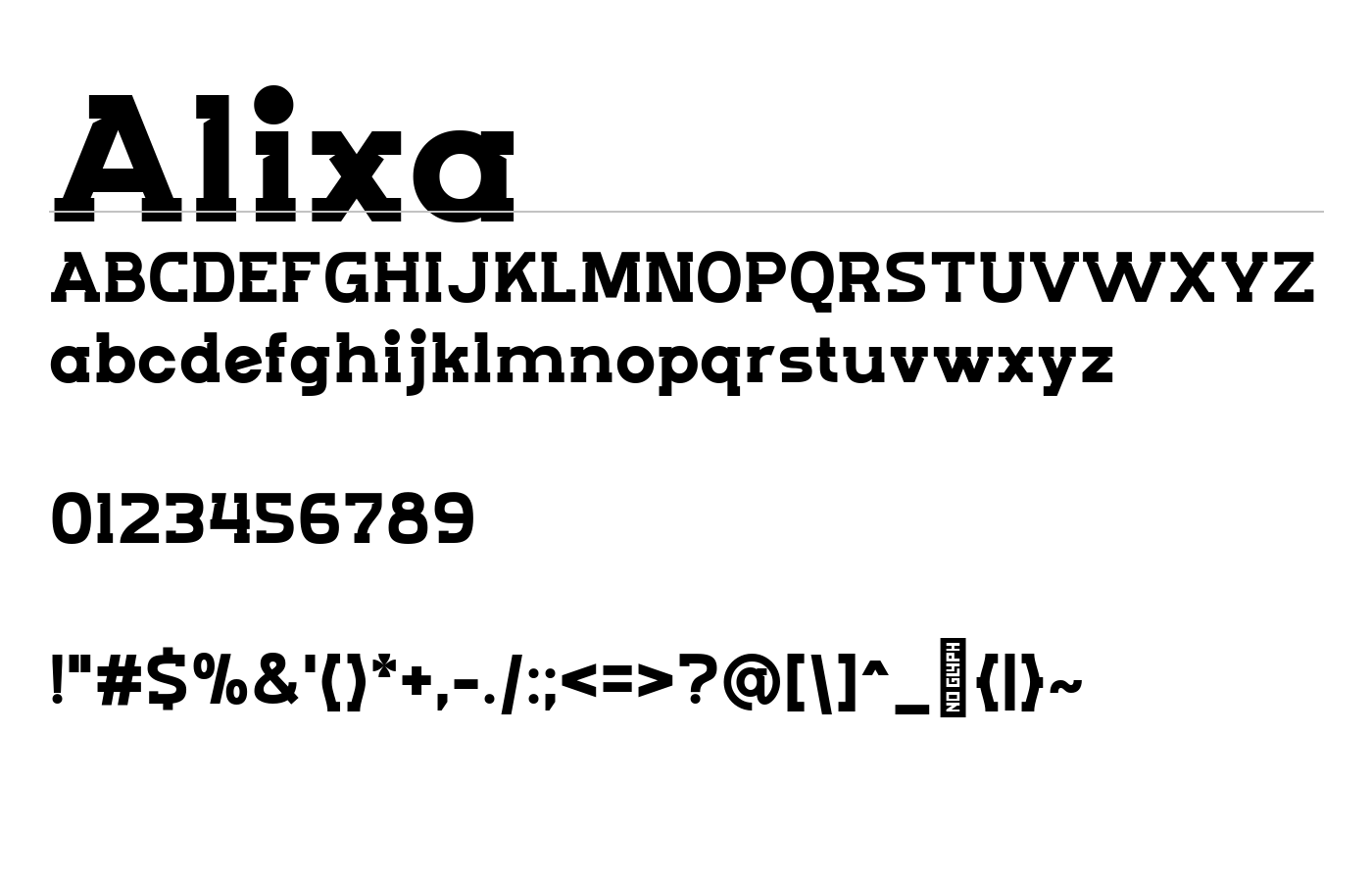
Alixa is a bold slab serif font with strong, block-like serifs and a sturdy, geometric structure that commands attention. Its high contrast strokes and generous letter spacing give it a confident, industrial feel, making it ideal for headlines, branding, and editorial use where a bold, impactful presence is needed. This font works well for projects that require a mix of vintage toughness and modern clarity.
Alixa Font
About Alixa Font
| Font family | Alixa Font |
| Designer | Ardyanatypes |